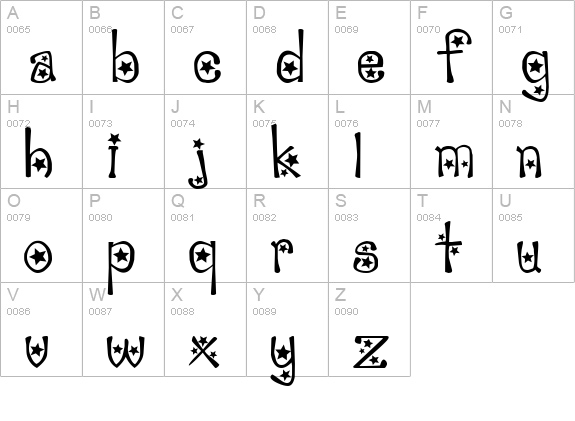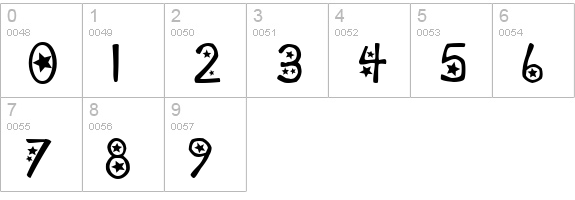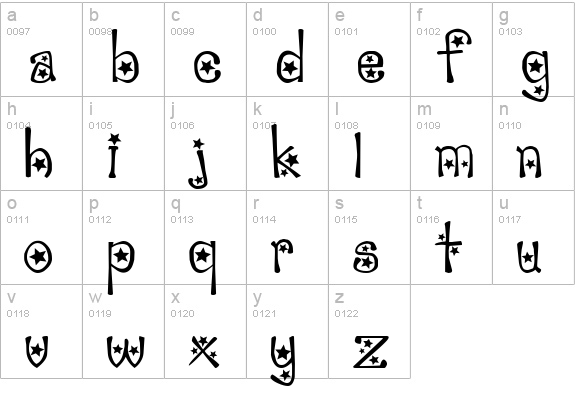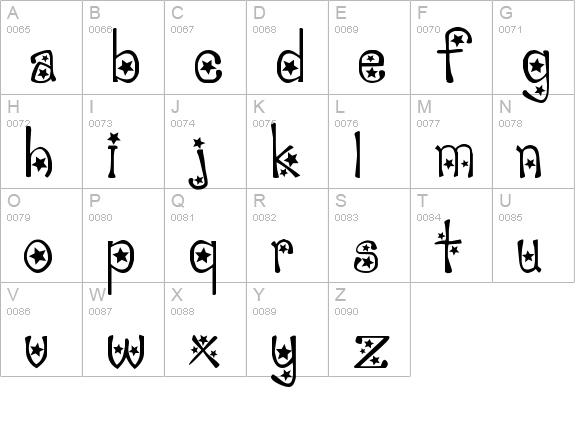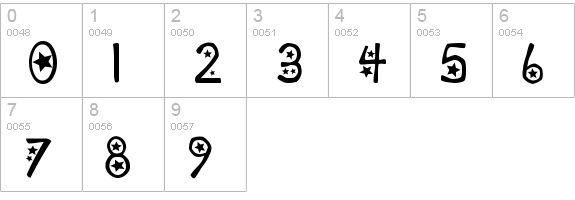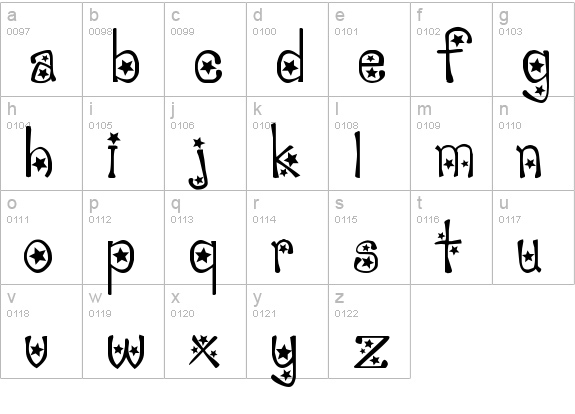
sabrina Font Details
Sabrina Font is a stunning and versatile typeface that exudes elegance and charm. With its flowing curves and delicate strokes, this font is perfect for adding a touch of sophistication to any design project. Whether you're creating invitations, logos, or branding materials, Sabrina Font will elevate your work to new heights. What makes Sabrina Font even more amazing is that it is completely free! Yes, you read that right. You can download this beautiful font for free at FontsMarket.com. This means that you can use Sabrina Font without any restrictions, whether it's for personal or commercial purposes. Not only is Sabrina Font visually appealing, but it is also incredibly easy to work with. Its clean and legible characters ensure that your message is conveyed with clarity and style. The versatility of this font allows it to be used in a variety of contexts, from elegant wedding invitations to modern website designs. The attention to detail in Sabrina Font is truly remarkable. Each letter has been meticulously crafted to create a harmonious and balanced typeface. Whether you're using it at large sizes for headlines or in smaller sizes for body text, Sabrina Font remains readable and visually stunning. So why wait? Take advantage of this amazing opportunity to enhance your designs with Sabrina Font. Download it for free at FontsMarket.com and experience the beauty and versatility of this exceptional typeface. Let Sabrina Font elevate your design projects to new heights and make a lasting impression on your audience.